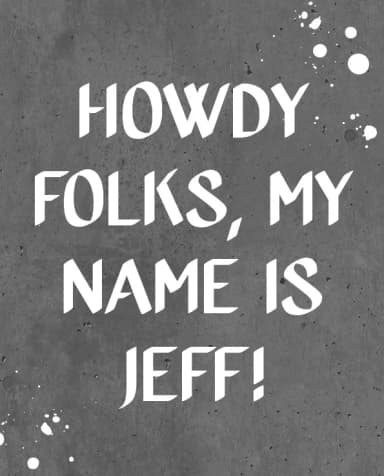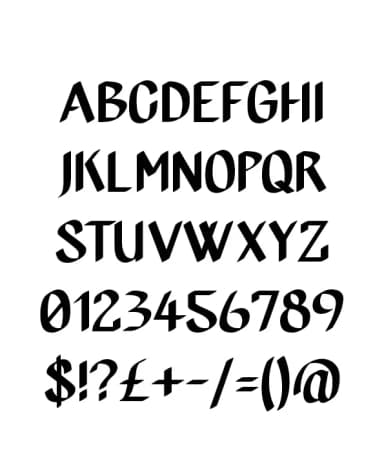
Jeff Font by Lianel Spengler is a bold brush script engineered for high-impact display work that commands immediate visual presence. With its confident, fluid strokes and distinctly contemporary character, this typeface delivers the kind of design punch that creative professionals seek when they want letterforms to function as the visual anchor of their composition. The uppercase-only construction keeps the design intentionally clean and focused, allowing each letter's substantial weight to command viewer attention through sheer typographic power.
Creatives have consistently embraced Jeff for ambitious projects that require that authoritative brush-script energy and personality. It excels in album artwork and music promotion graphics, where its bold character communicates artistic confidence and contemporary style with authority. Event signage and dramatic poster designs benefit tremendously from its commanding visual weight whether displayed on digital screens or traditional printed materials. The font delivers equally compelling results in branding applications and social media graphics engineered to break through the endless scroll of daily feeds. Beyond its striking letterforms, Jeff includes a complete set of numbers and special characters, giving you genuine flexibility to seamlessly incorporate dates, pricing information, symbols, and decorative embellishments without disrupting overall visual cohesion.
Jeff Font is a script font that shines as a display or heading face. Pair it with a clean sans-serif or serif font for body text — the contrast creates a clear hierarchy while the two styles stay balanced and easy to read.